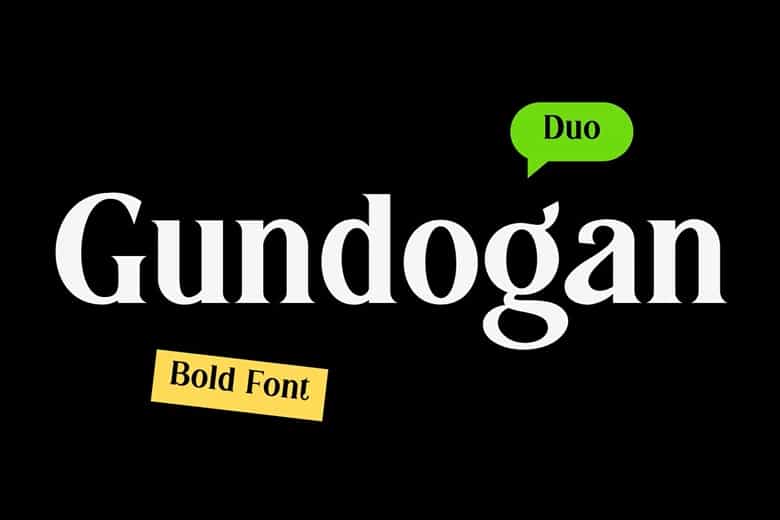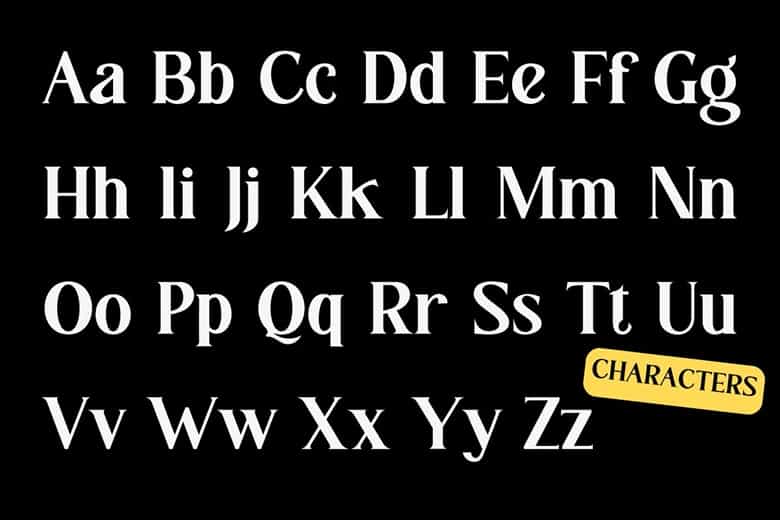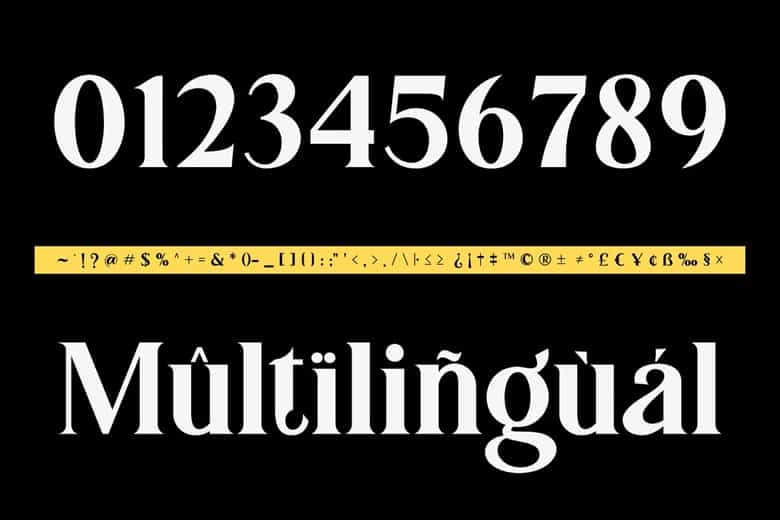
Introducing Gundogan – is a bold serif typeface that has been designed to provide the clients with intense and professional feeling through its stylish features. Being wide and powerful, sharp, and possessing uniquely shaped letters, Gundogan can be successfully applied to any type of design – logos, branding and corporate identity, posters and covers of books and magazines, product packaging, and more.